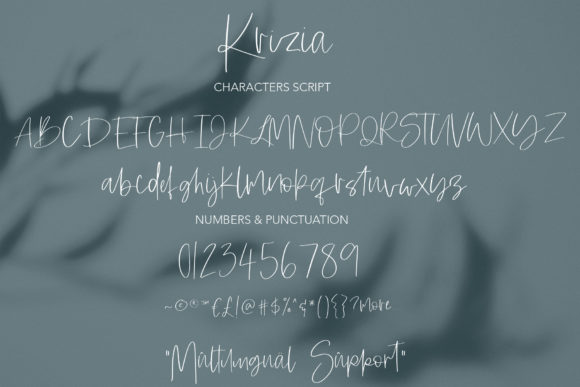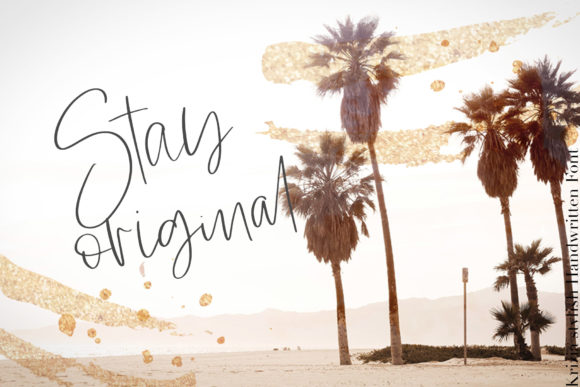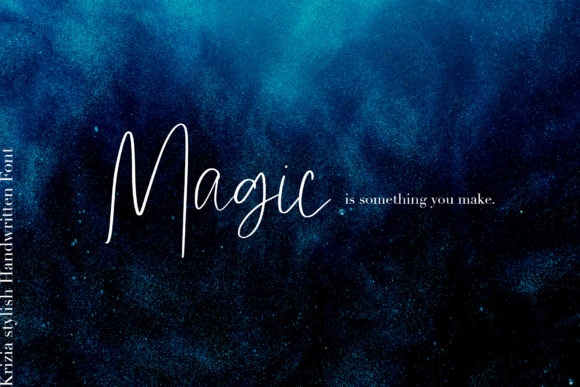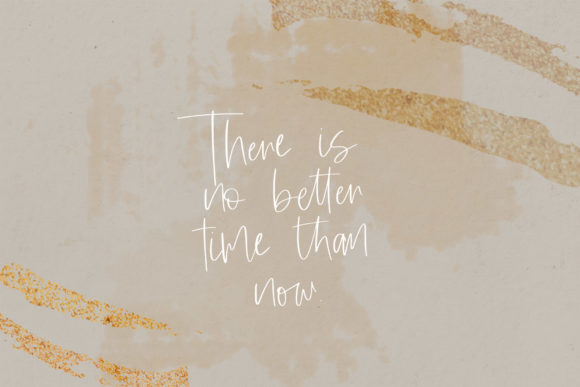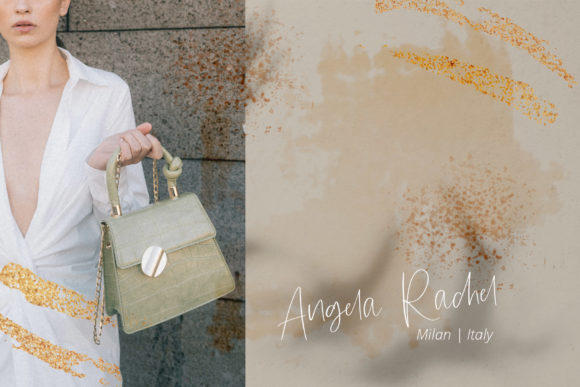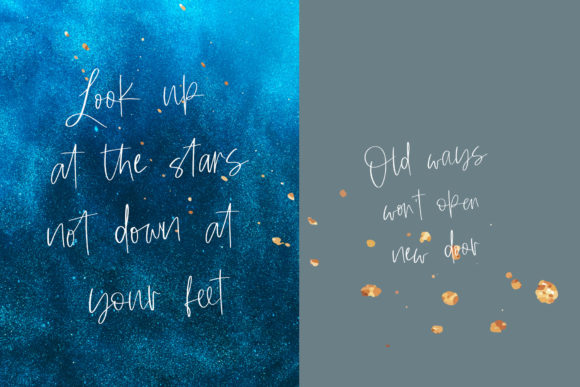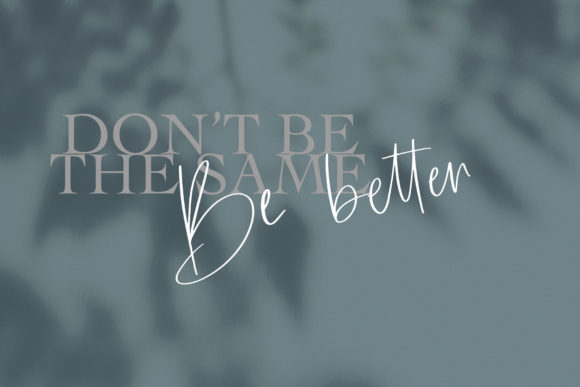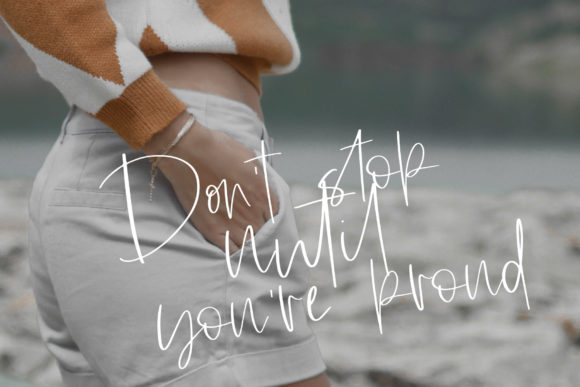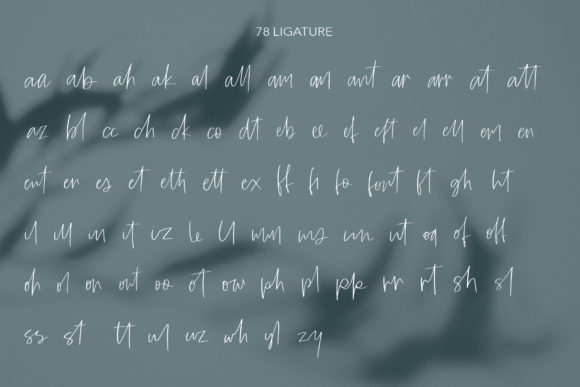
Krizia Font
About Krizia Font
Krizia is a fun and light handwritten font with a contemporary feel. Fall in love with its unique vibe, and turn any design project into a stand out!